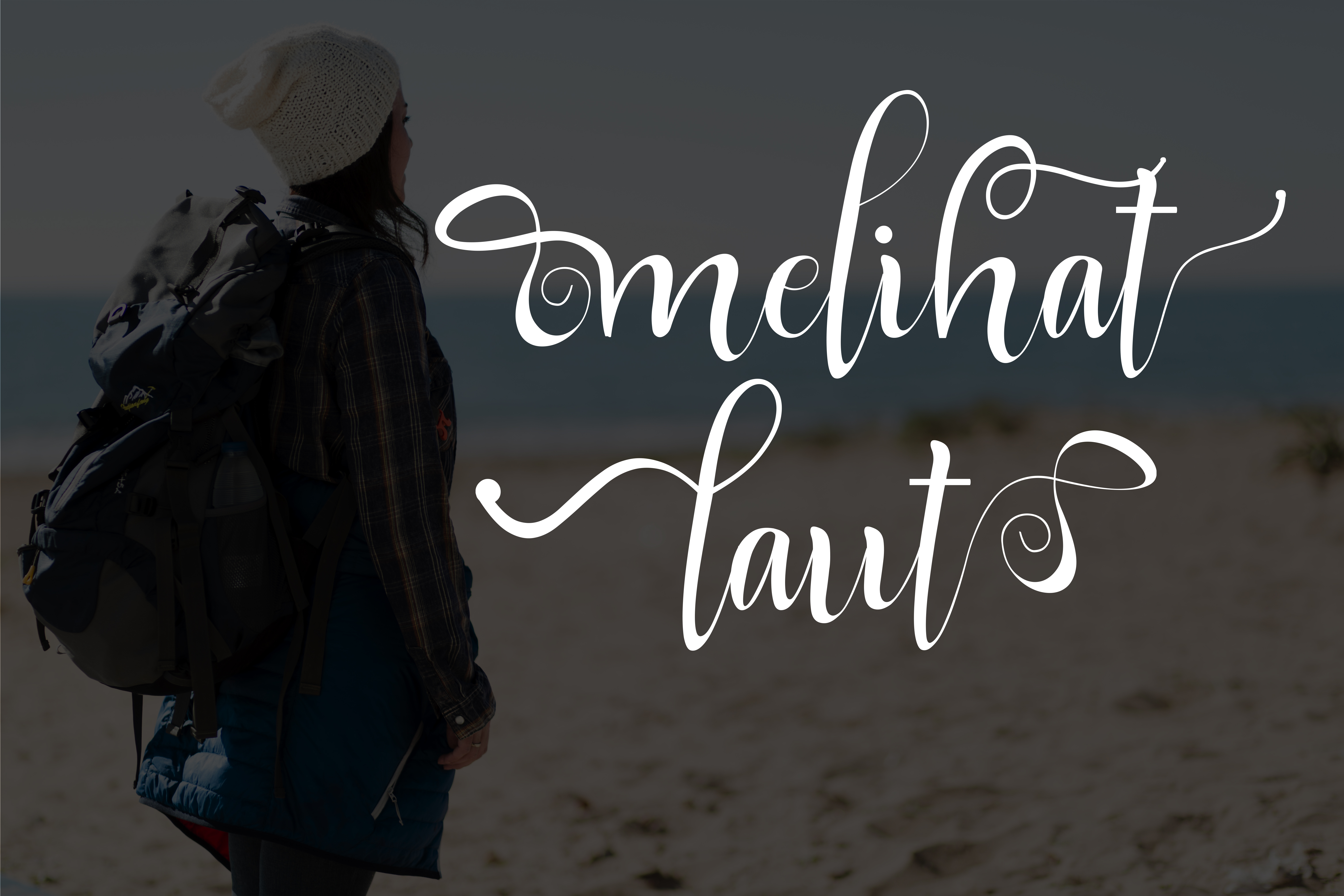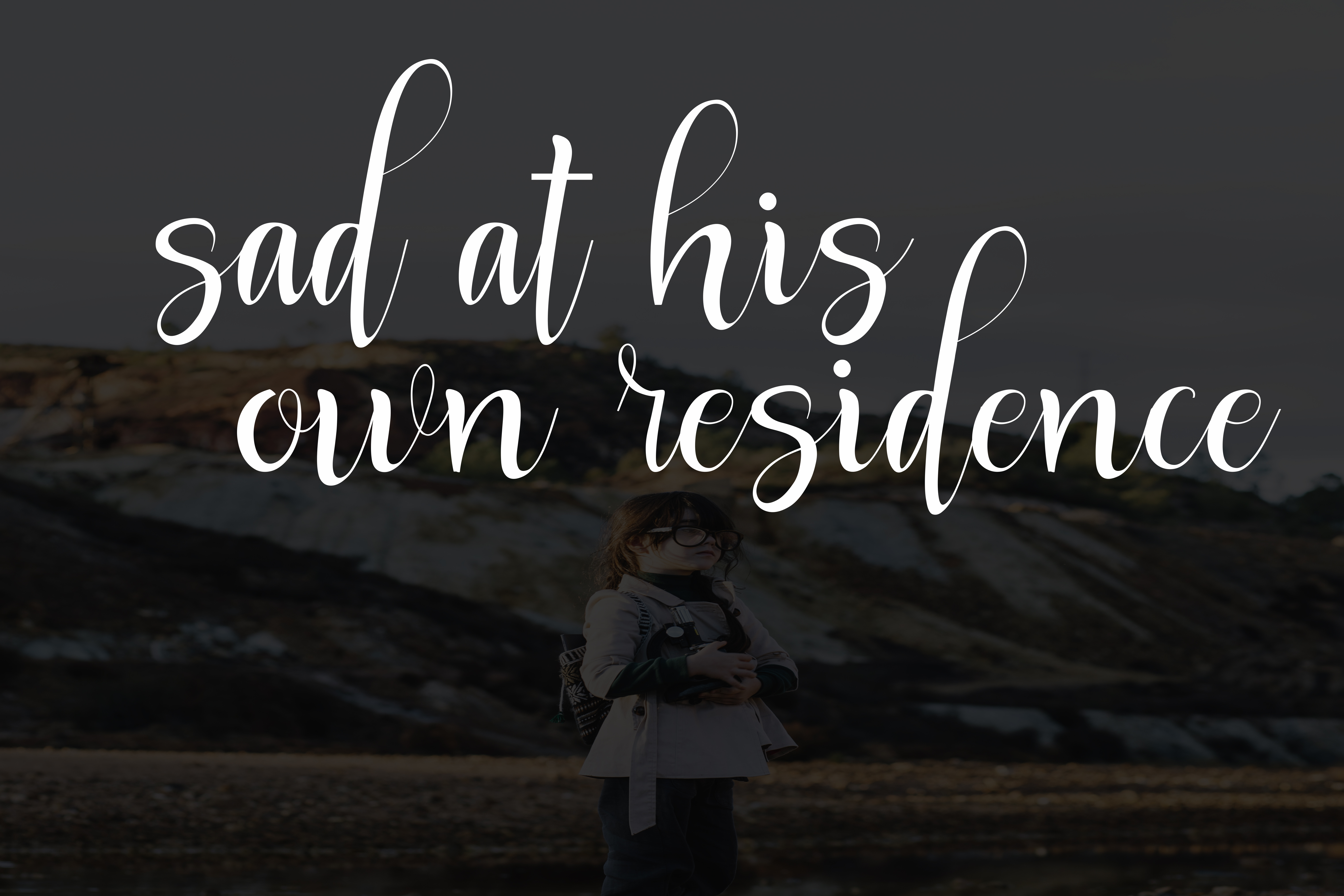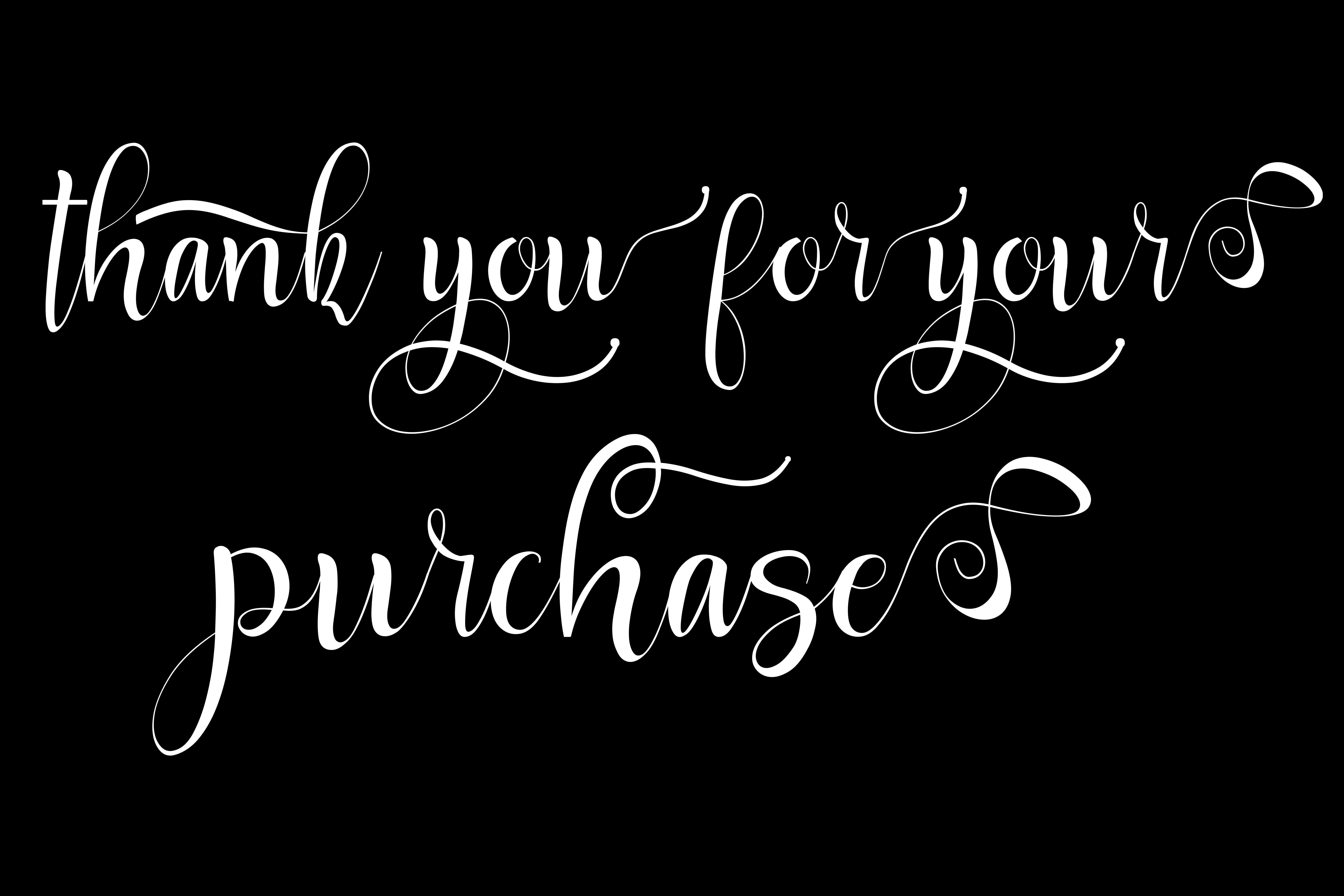
Hannah Script Font: A Modern Calligraphy Font for Elegant Designs
The Hannah Script font is a beautiful, modern calligraphy font that has gained popularity among designers and crafters alike. Created by hand, this font features a natural style that adds a touch of elegance and sophistication to any design project. In this article, we’ll explore the features and benefits of the Hannah Script font, and how it can be used to elevate your designs.
What is the Hannah Script Font?
The Hannah Script font is a modern calligraphy font that is created by hand, giving it a unique and personal touch. It is characterized by its flowing lines, delicate strokes, and natural style, which makes it perfect for designs that require a touch of elegance and sophistication. The font is designed to look like it was written with a pen or a brush, giving it a warm and inviting feel.
Features of the Hannah Script Font
The Hannah Script font has several features that make it a popular choice among designers and crafters. Some of its key features include:
- Handwritten style: The Hannah Script font is created by hand, giving it a unique and personal touch.
- Natural style: The font features a natural style that is perfect for designs that require a touch of elegance and sophistication.
- Flowing lines: The font has flowing lines that give it a sense of movement and fluidity.
- Delicate strokes: The font features delicate strokes that add to its elegance and sophistication.
- Modern calligraphy: The Hannah Script font is a modern calligraphy font that is perfect for designs that require a touch of modernity and style.
Benefits of Using the Hannah Script Font
The Hannah Script font has several benefits that make it a popular choice among designers and crafters. Some of its key benefits include:
- Elegant designs: The Hannah Script font is perfect for designs that require a touch of elegance and sophistication.
- Unique style: The font’s handwritten style gives it a unique and personal touch that sets it apart from other fonts.
- Versatility: The Hannah Script font is versatile and can be used for a variety of design projects, including wedding invitations, greeting cards, and more.
- Easy to read: The font is easy to read, making it perfect for designs that require a clear and legible font.
How to Use the Hannah Script Font
The Hannah Script font can be used for a variety of design projects, including:
- Wedding invitations: The font is perfect for wedding invitations, as it adds a touch of elegance and sophistication to the design.
- Greeting cards: The Hannah Script font is also perfect for greeting cards, as it adds a personal touch to the design.
- Logos and branding: The font can be used for logos and branding, as it adds a touch of modernity and style to the design.
- Social media graphics: The Hannah Script font can also be used for social media graphics, as it adds a touch of elegance and sophistication to the design.
Tips for Using the Hannah Script Font
Here are some tips for using the Hannah Script font:
- Use it sparingly: The Hannah Script font is best used sparingly, as it can be overwhelming if used too much.
- Pair it with other fonts: The font can be paired with other fonts to create a unique and interesting design.
- Experiment with colors: The Hannah Script font can be used with a variety of colors to create a unique and eye-catching design.
The Hannah Script font is a beautiful, modern calligraphy font that is perfect for designs that require a touch of elegance and sophistication. Its handwritten style, natural style, and flowing lines make it a popular choice among designers and crafters. With its versatility, ease of use, and unique style, the Hannah Script font is a great addition to any design project.